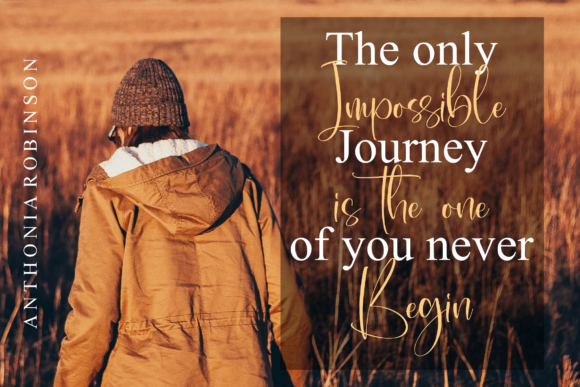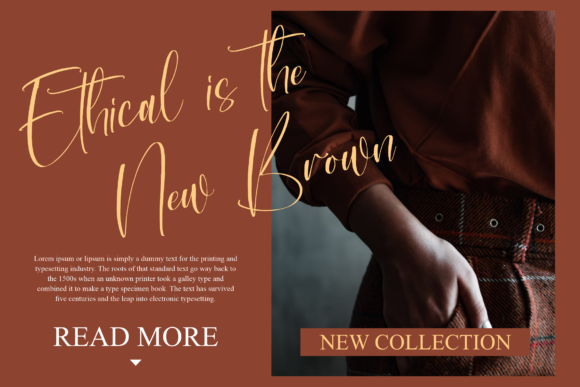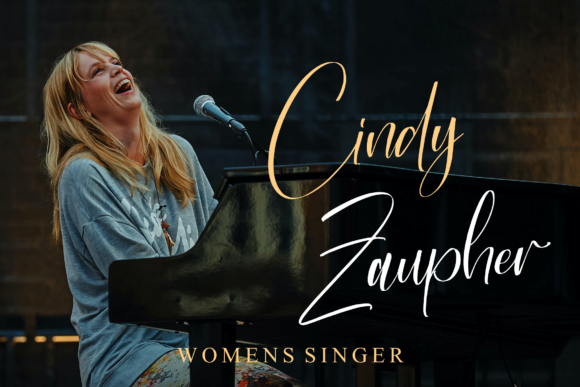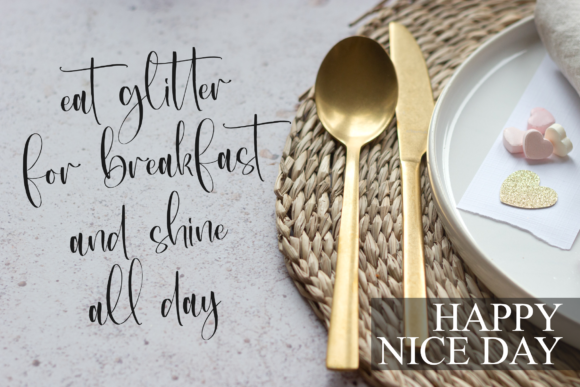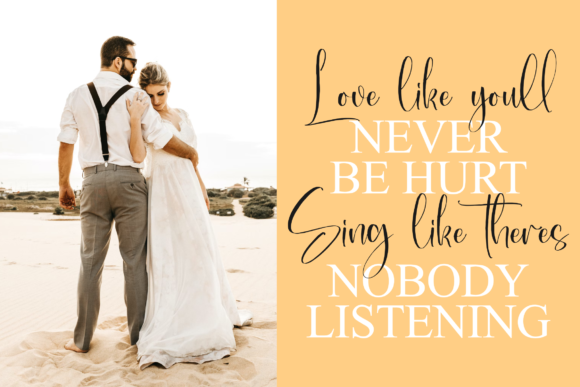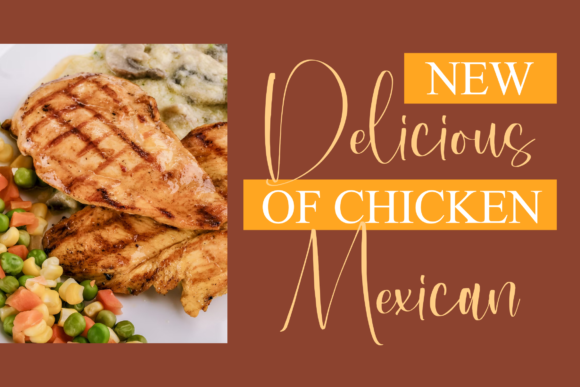
Discover the Luxurious Touch of Brittanyla Font
As designers, we’ve all been there – staring at a blank page, searching for that one font that elevates our project from good to great. For me, it’s often the moment when I stumble upon a beautiful script font that sparks inspiration and sets the tone for the entire design. And that’s exactly what happens when I work with the stunning Brittanyla Font.
With its elegant curves and refined details, Brittanyla Font is the perfect choice for sophisticated projects that demand a touch of luxury and style. Whether you’re creating a high-end logo or branding materials, this font will add a level of sophistication that’s sure to impress. Plus, its PUA encoding makes it easy to access all the amazing glyphs and ligatures, giving you endless possibilities to get creative.
For designers, Brittanyla Font is a valuable addition to any toolkit. Its versatility and beauty make it a go-to choice for a wide range of projects, from fashion and beauty to luxury goods and more. So why settle for ordinary when you can add a dash of luxury with the stunning Brittanyla Font?
Brittanyla Font Key Features
- Font Size: 8,000+ glyphs, including a wide range of Latin-based languages and some Cyrillic and Greek characters
- Unique Characteristics: Elegant, cursive script with a touch of modernity and sophistication, making it perfect for creative and artistic applications
- Font Style: Script, Cursive, Calligraphy
Brittanyla Font Review
I recently had the chance to work with the Brittanyla font, and I must say, it’s a mixed bag. Let’s dive into what works well and what doesn’t.
- Brittanyla is a beautiful, elegant script font perfect for creating a whimsical and feminine feel in your designs.
- It has a wide range of styles and weights, from light to bold, allowing for a lot of versatility in your designs.
- The font is highly legible, even at smaller sizes, making it a great choice for body text or headings.
- The font can be a bit too ornate for some designs, overpowering the other elements on the page.
- It may not be the best choice for digital displays or screens with low resolution, as the font’s curves and lines may become pixelated.
In conclusion, Brittanyla is a lovely font that can add a touch of sophistication and elegance to your designs. However, it may not be the best choice for every project, and it’s essential to consider the font’s limitations before using it.
Tips for Getting the Most Out of Brittanyla Font
Use Brittanyla Font for titles, headings, and emphasis to create visual hierarchy. Experiment with different font sizes and colors to achieve a cohesive look. Consider pairing Brittanyla Font with other sans-serif fonts for a balanced design.
Brittanyla Font is suitable for various design projects, including:
- Web design and digital marketing